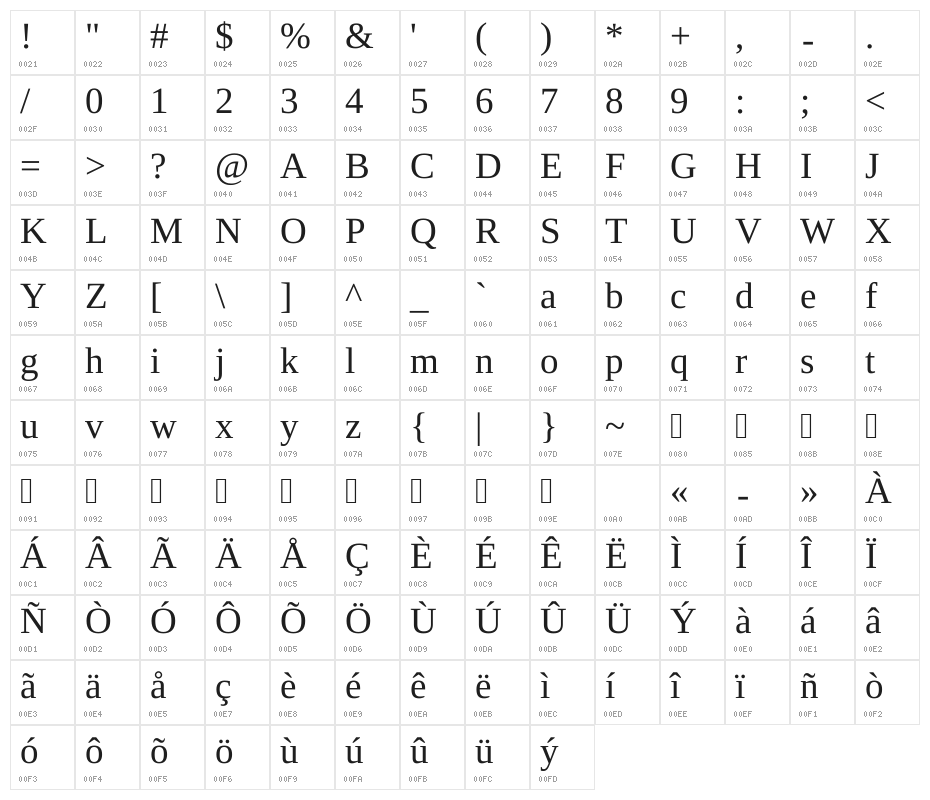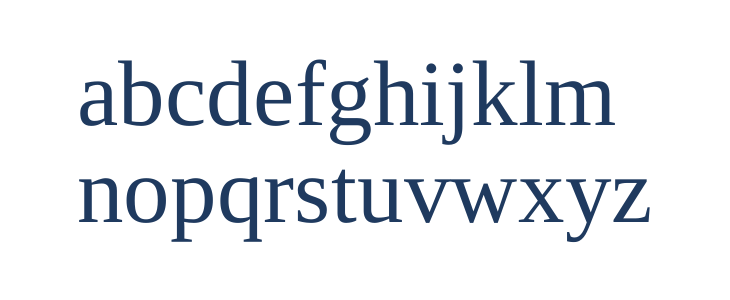
UKIJ Tuz Tor Font
UKIJ Tuz Tor Description
This font features a classic serif style with a modern twist, characterized by its elegant and refined letterforms. The uppercase letters exhibit a strong presence with their balanced proportions and subtle serifs, while the lowercase letters maintain a harmonious flow with slightly rounded edges. The numerals are clear and distinct, ensuring readability. Special characters are well-integrated, complementing the overall aesthetic. The font's design is versatile, suitable for both digital and print media, offering a timeless appeal that enhances any project.
| Proposed Projects | Ideal for editorial design, book covers, formal invitations, and branding materials. |